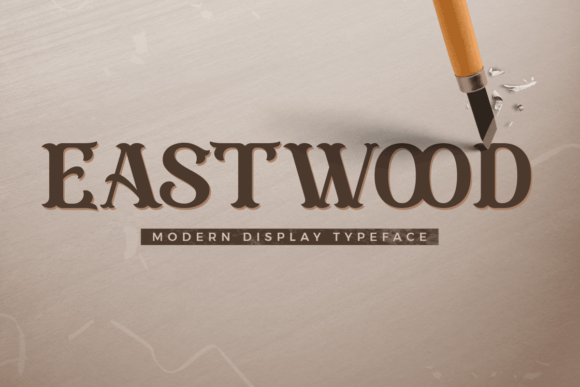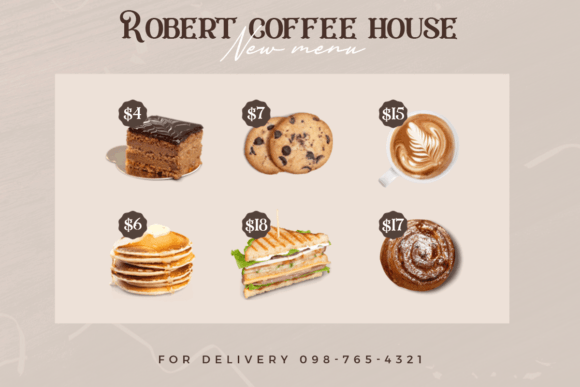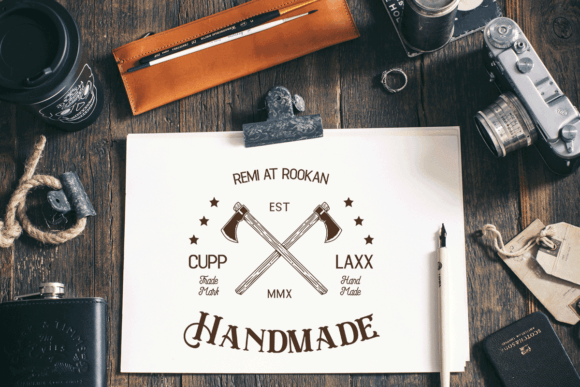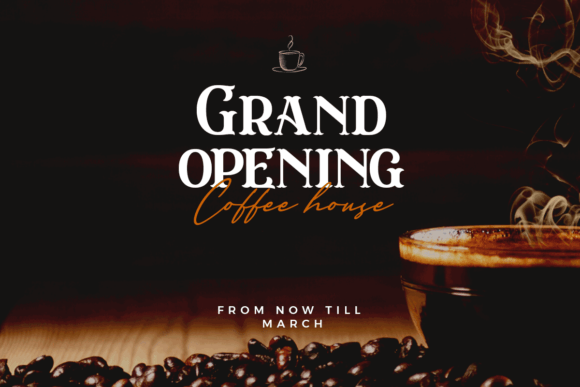
Eastwood Font: A Modern Display Font for Logos & Branding
About the Eastwood Font
Welcome to the world of Eastwood Font, a typeface that will inspire your next great project. Eastwood is a beautiful display font, perfect for making your designs stand out from the rest. Its impeccable characters like aesthetic wood carvings are perfect for logos, labels, invitations and any project that requires modern typography. This font is PUA encoded which means you can access all of the amazing glyphs and ligatures with ease!
Eastwood excels in headline treatments, logos, and short-form text within branding materials and packaging. Its carved aesthetic works particularly well for projects with a premium or handcrafted feel, lending itself to luxury goods, boutique brands, or artisanal products. Avoid using Eastwood for body copy or extended text; its decorative nature makes it unsuitable for readability in long paragraphs or UI applications.
To complement Eastwood’s bold personality, consider pairing it with a clean sans-serif like Montserrat for body text, or a more geometric sans-serif such as Futura for a modern, high-contrast look. For a warmer feel, a serif typeface like Playfair Display can create a classic yet sophisticated pairing.
Eastwood projects a confident, modern, and slightly rustic personality. Its strong forms and detailed glyphs suggest quality and craftsmanship, making it ideal for brands aiming for a sophisticated yet approachable image.
Eastwood Font Usage Examples
Eastwood Font Example